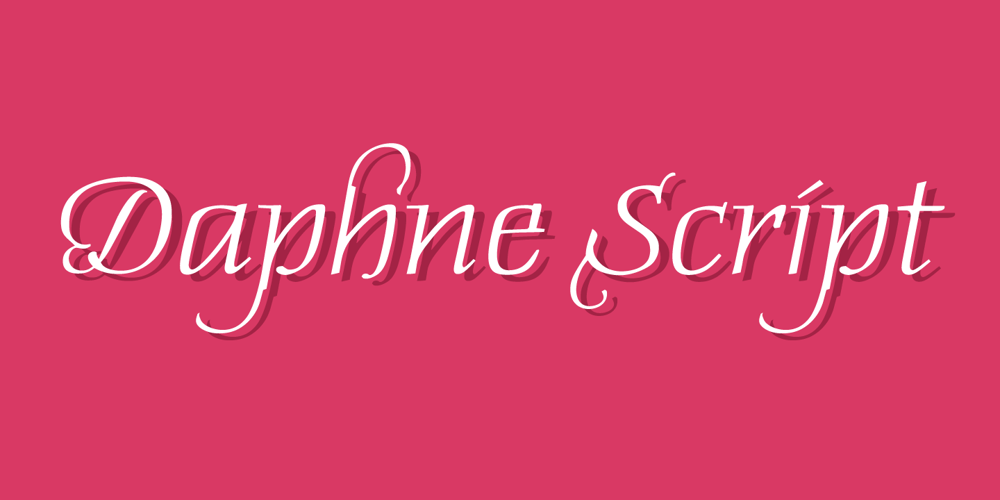
Daphne Script Font Family was designed by published by Ludwig Type. Daphne Script contains 1 styles and family package options. This gentle script, designed by writing master Georg Salden, is full of grace and vitality. The richness of ideas appear particularly in the curved capital characters. Lower case letters have curved elements primarily at the ascender and descender parts. Daphne Script contains numerous alternate characters and other OpenType features.